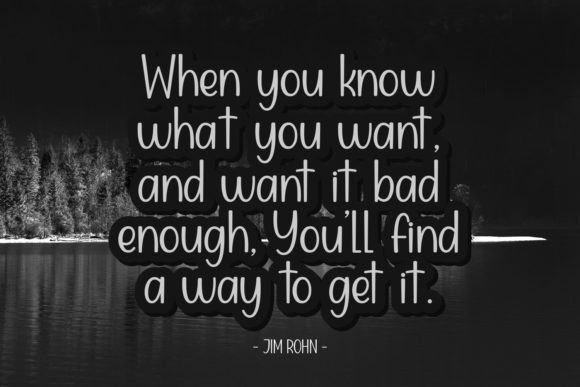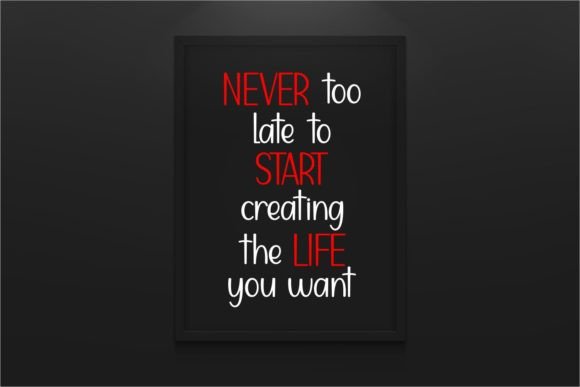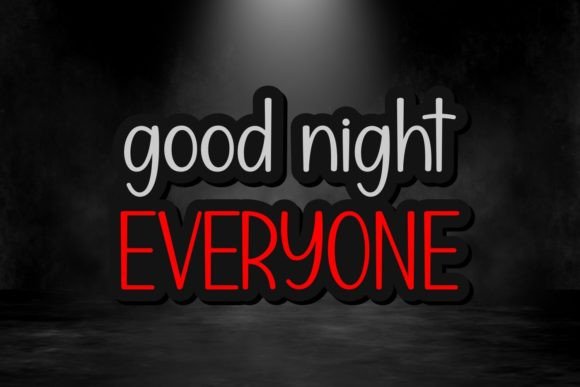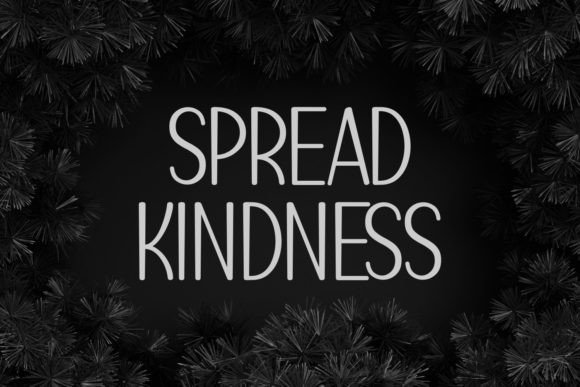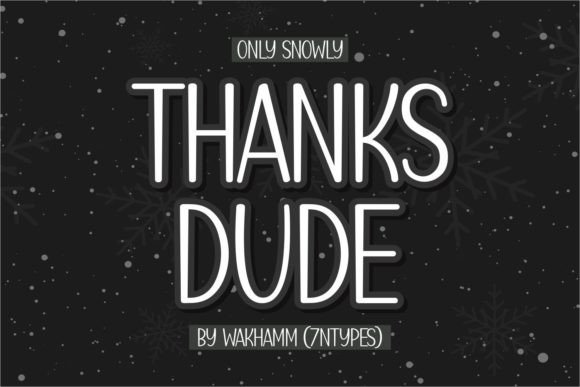
Introduction to Only Snowly Font
As a designer, you know that finding the perfect font can be a game-changer for your next project. It’s that moment when the words on your screen come alive, and you can envision the final product. For many of us, that moment happened when we stumbled upon the Only Snowly Font. This exclusive script font has been making waves in the design community, and for good reason.
With its stylish and fashionable touch, Only Snowly Font is the perfect choice for creating social media posts, logos, branding, and quotes. Whether you’re working on a high-quality design project or just need a reliable design resource, this font is sure to impress. And the best part? It’s available for free download, complete with a transparent background, making it easy to integrate into your creative project.
Key Features of Only Snowly Font
- Unique, hand-drawn design with a transparent background, allowing for easy customization and layering.
- Designed with a clean and modern aesthetic, making it perfect for a variety of design applications.
Honest Review: Only Snowly Font
As a designer, I’m always on the lookout for high-quality design resources that can elevate my creative projects. The Only Snowly Font caught my eye, and I’m excited to share my thoughts on this free download.
What works well: ✨ The Only Snowly Font features a beautiful, elegant design with a transparent background, making it perfect for overlaying on images or using as a standalone element. The font is highly versatile and can be used in a variety of creative projects, from logos to typography-based art.
What could be improved: ⚠️ While the Only Snowly Font is a great addition to any design arsenal, I did notice that it may not be as comprehensive as some other fonts on the market. The character set is limited, which could be a drawback for designers who need to use special characters or languages.
Overall impression: I’m impressed with the Only Snowly Font’s design and versatility. While it may have some limitations, it’s a great resource for designers who want to add a touch of elegance to their creative projects.
Only Snowly Font
Only Snowly Font is a high-quality design resource ideal for creative projects. It’s available for free download and features a transparent background, making it perfect for various design applications.
Only Snowly Font is perfect for various design projects, including:
- Graphic design and visual arts
Tips for Getting the Most Out of Only Snowly Font
To get the most out of Only Snowly Font, use it in combination with other design resources, such as graphics and images. Experiment with different font sizes, colors, and styles to create unique and eye-catching designs.